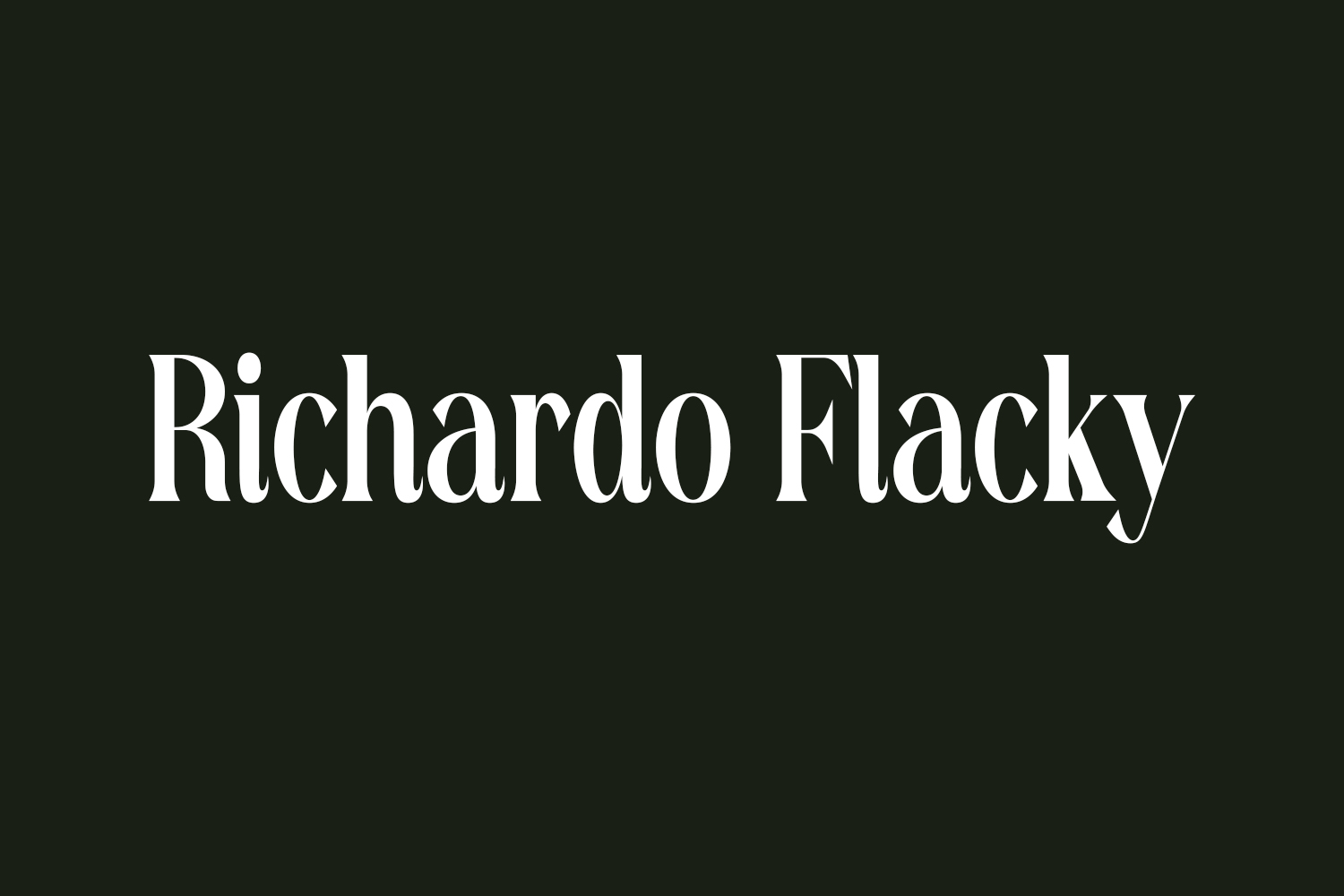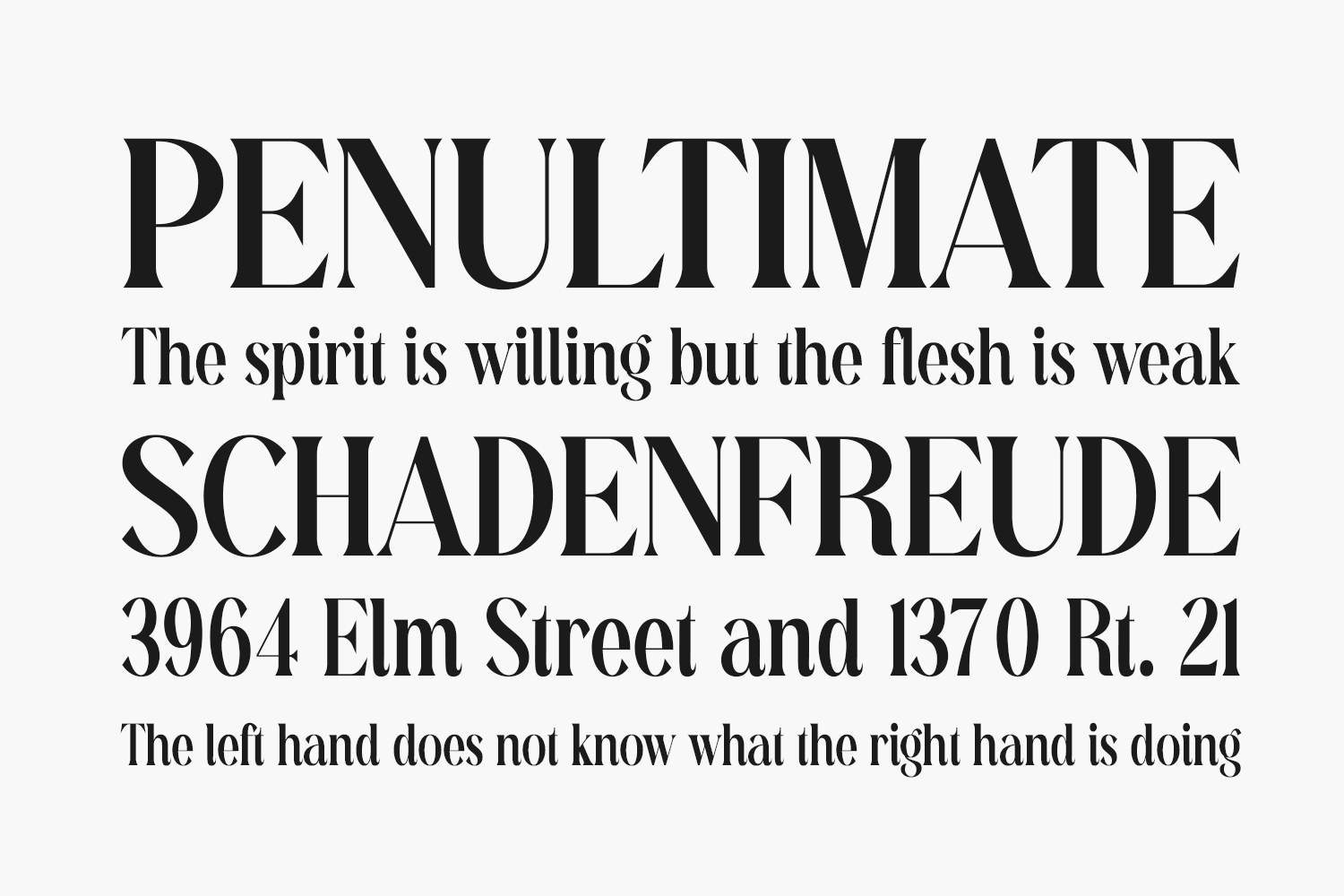
Richardo Flacky Free Font Family is a trendy and stylish serif font that exudes elegance and sophistication. Its sleek lines and sophisticated curves convey a sense of refined taste and class. The font’s unique serif design gives it a modern and fashionable look, making it perfect for any project that needs a touch of elegance and style. The font’s versatile design makes it suitable for any design project, from fashion and beauty to luxury goods and high-end services. Whether you’re creating a website, a logo, or a print design, the Richardo Flacky Free Font Family will add a touch of class and elegance to your work.